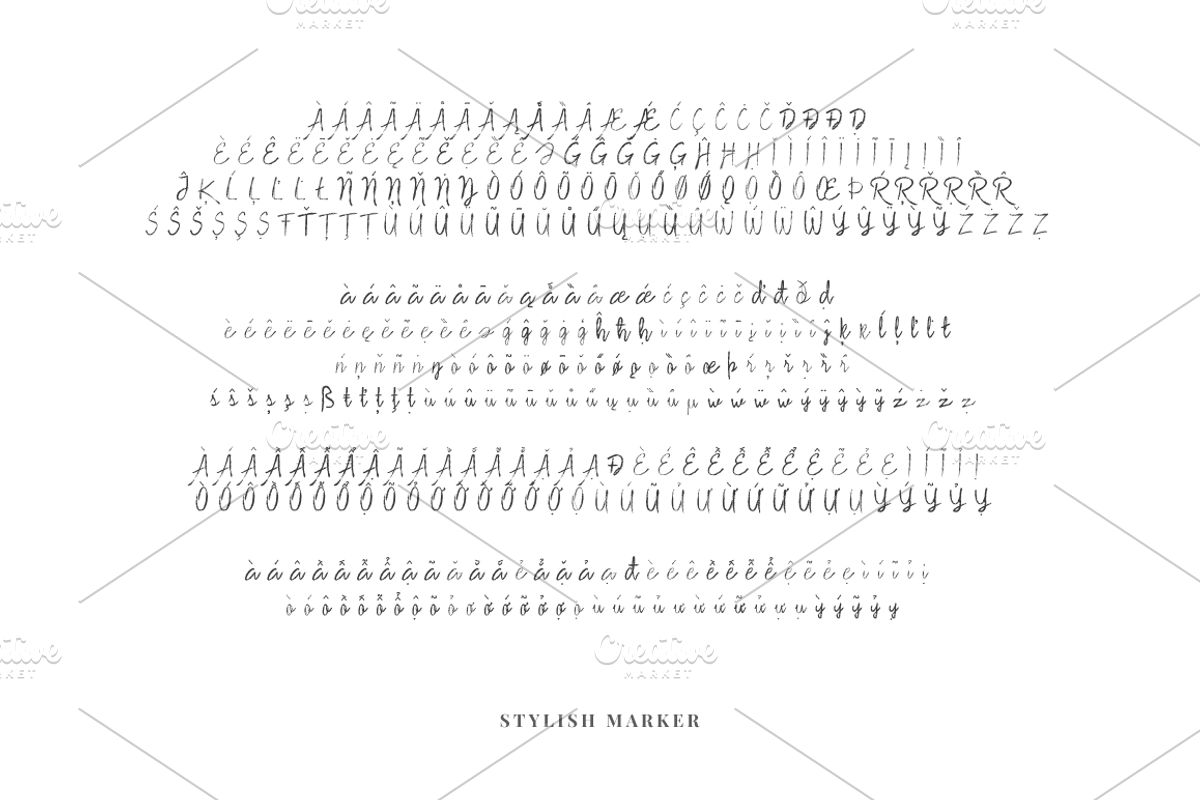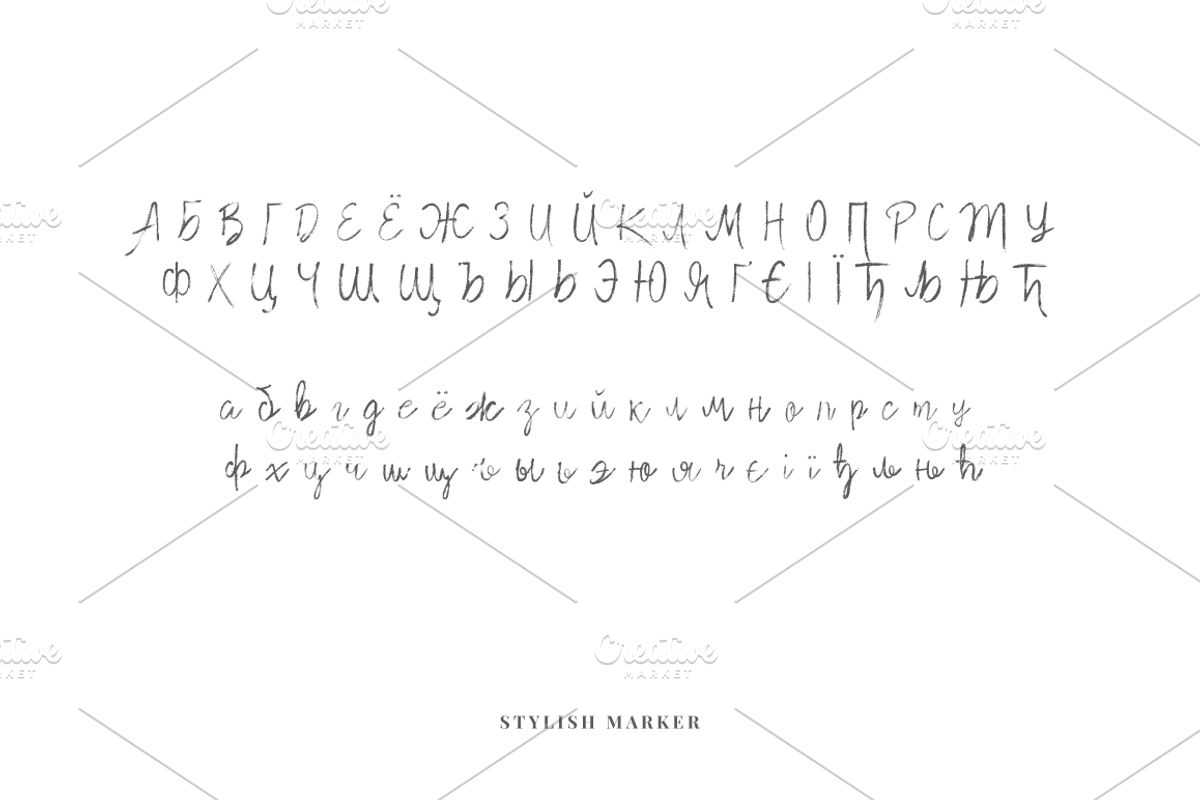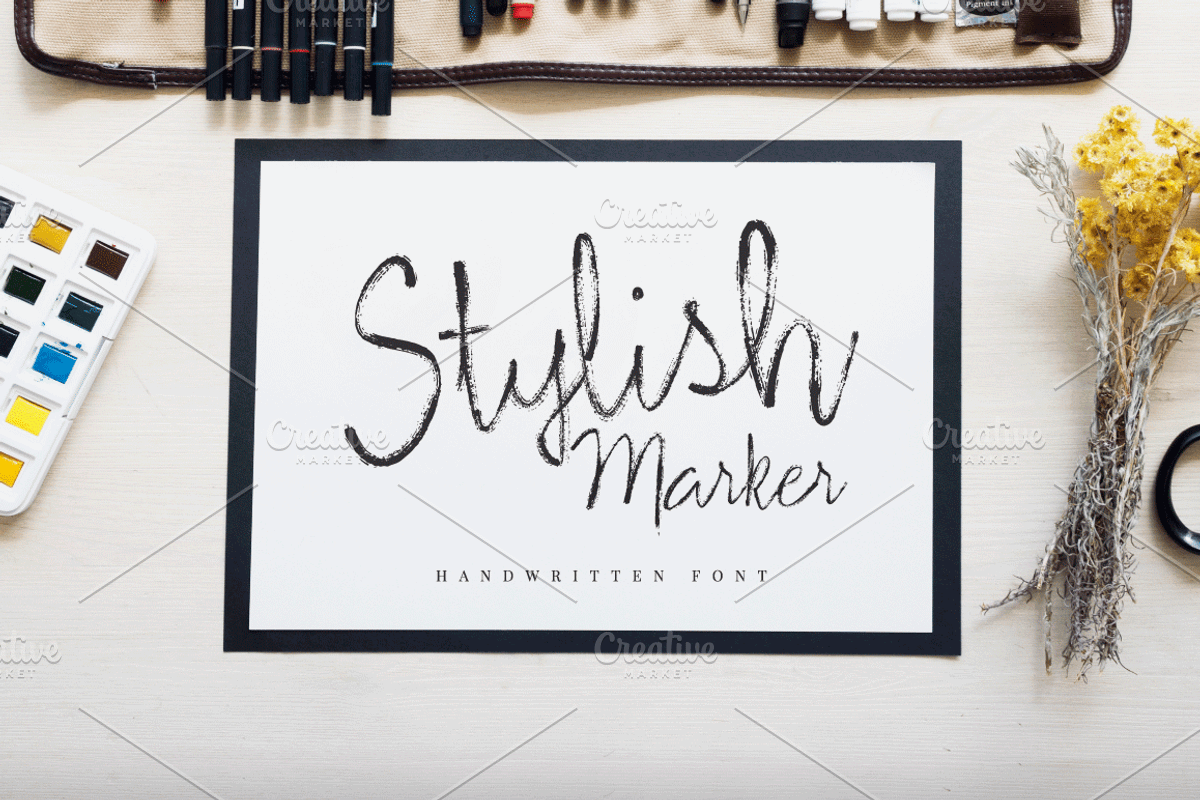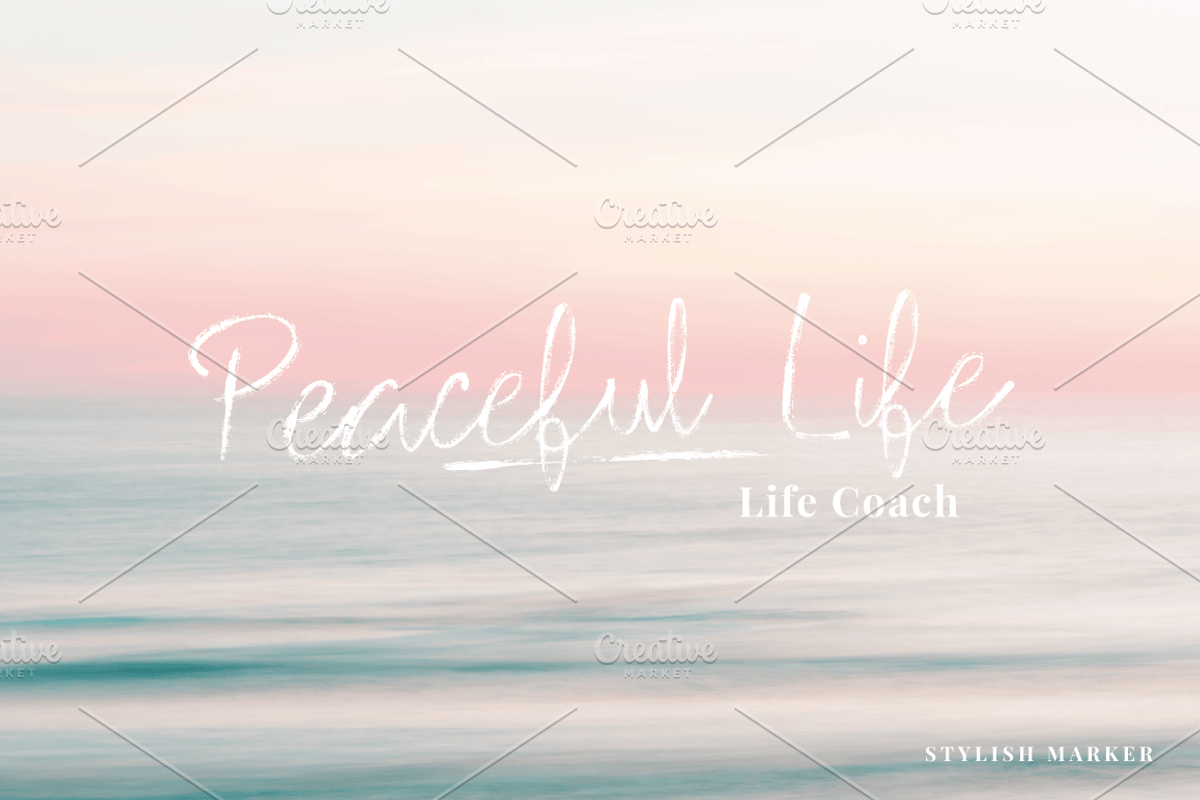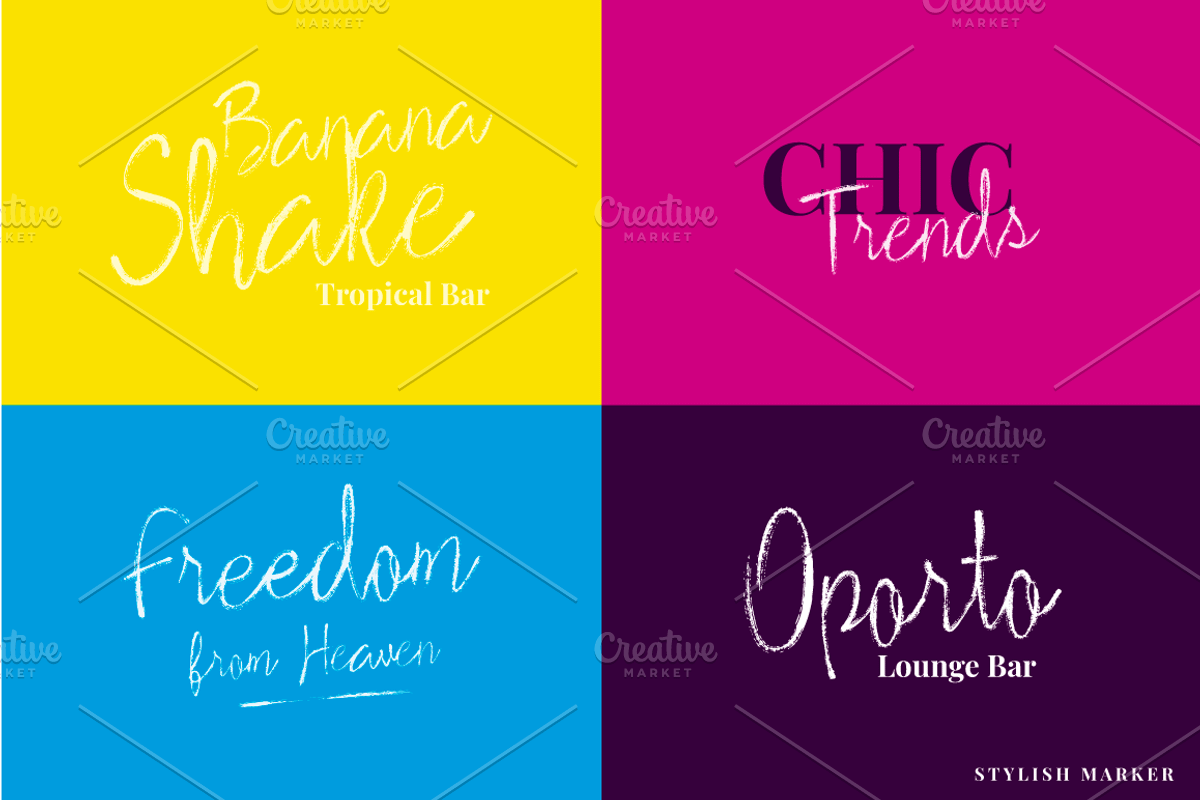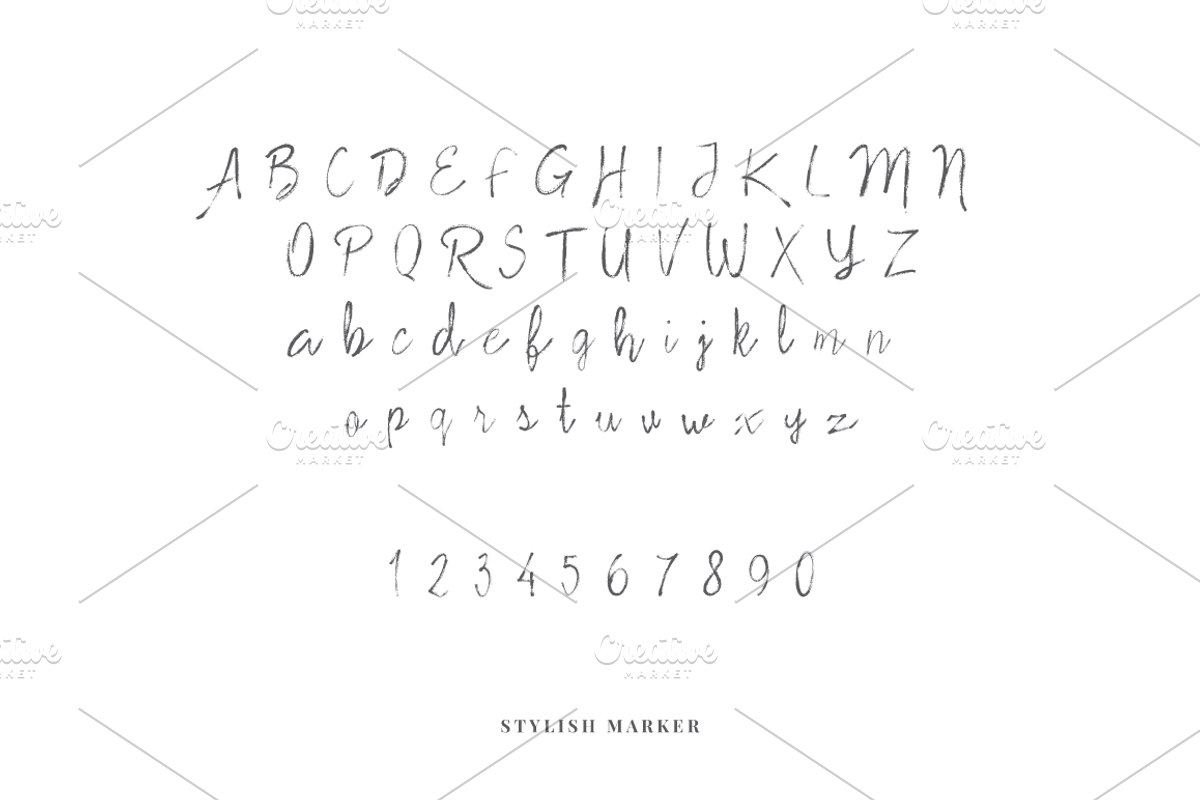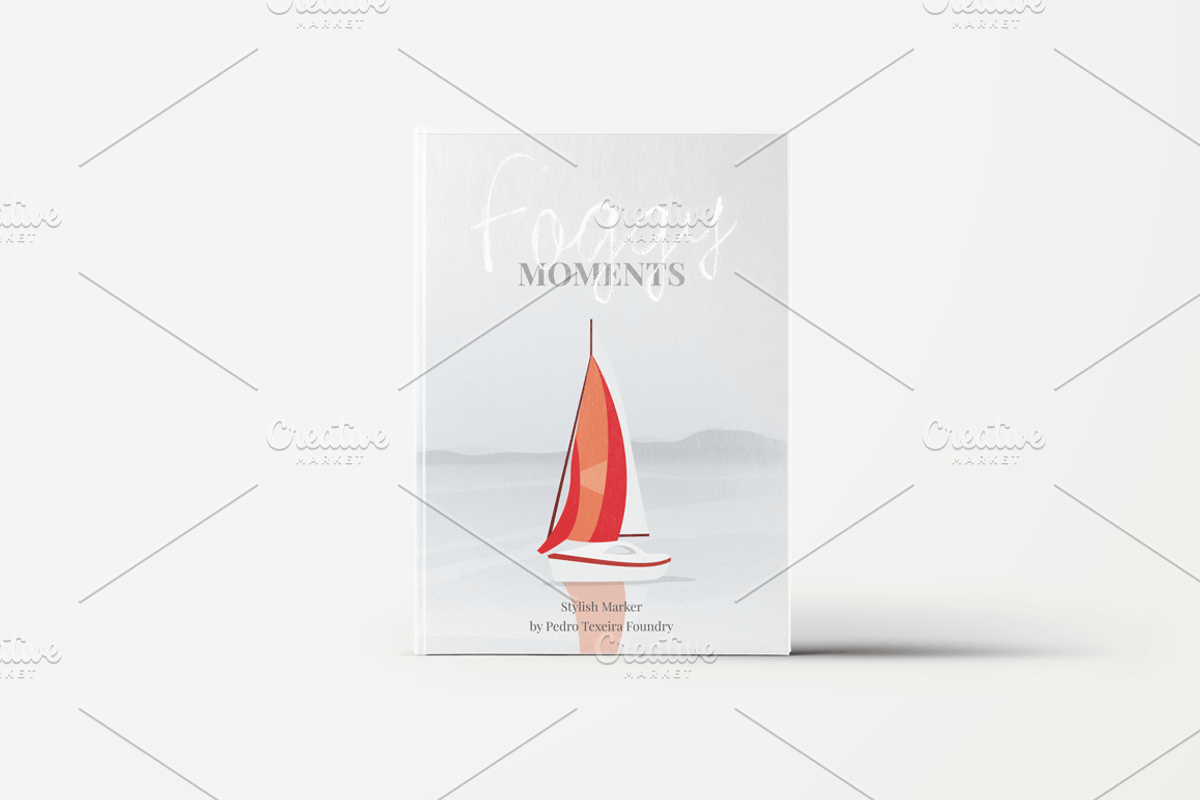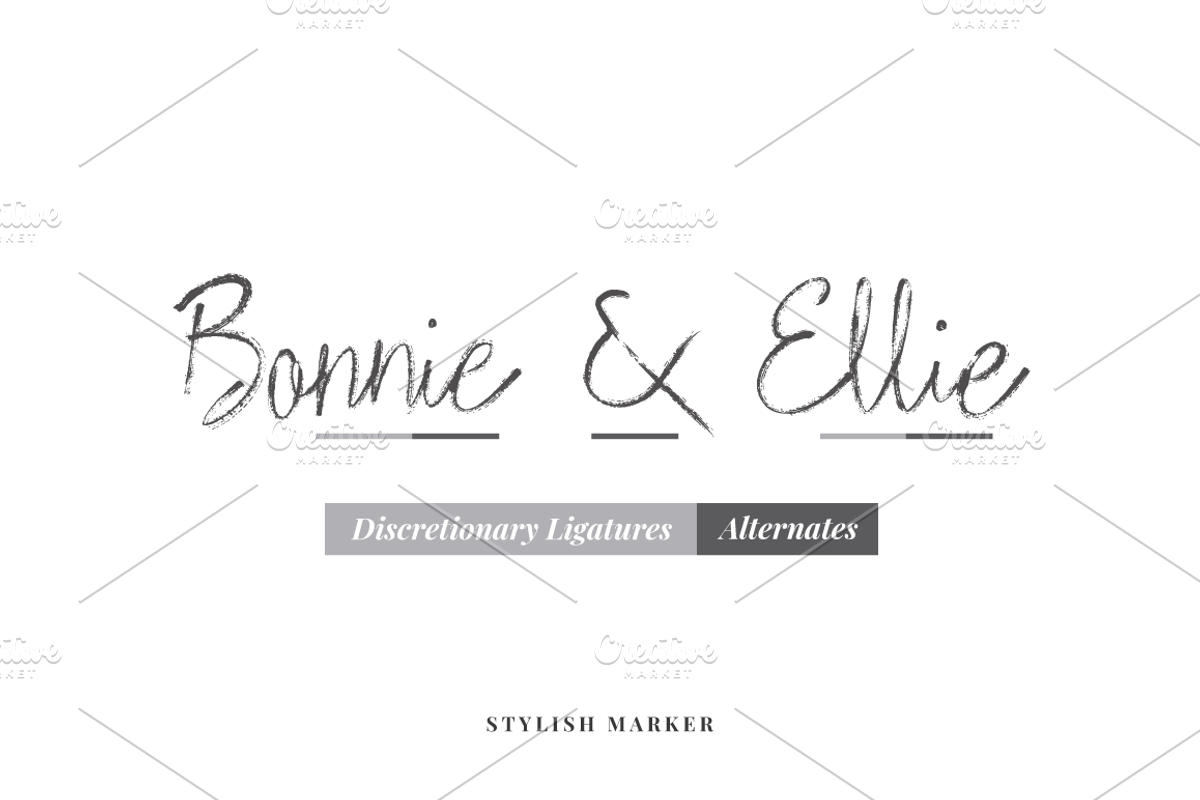
Stylish Marker Font
Stylish Marker is a font based on a casual and worn marker, just before it's unusable, thus giving rise to an irregular texture, typical of a widely used marker
Multilingual supported: Central Europe, Baltic, Turkish, Romanian, Vietnamese and Cyrillic
Stylish Marker Font by vectalex fits naturally into Branding, posters, packaging, typography.